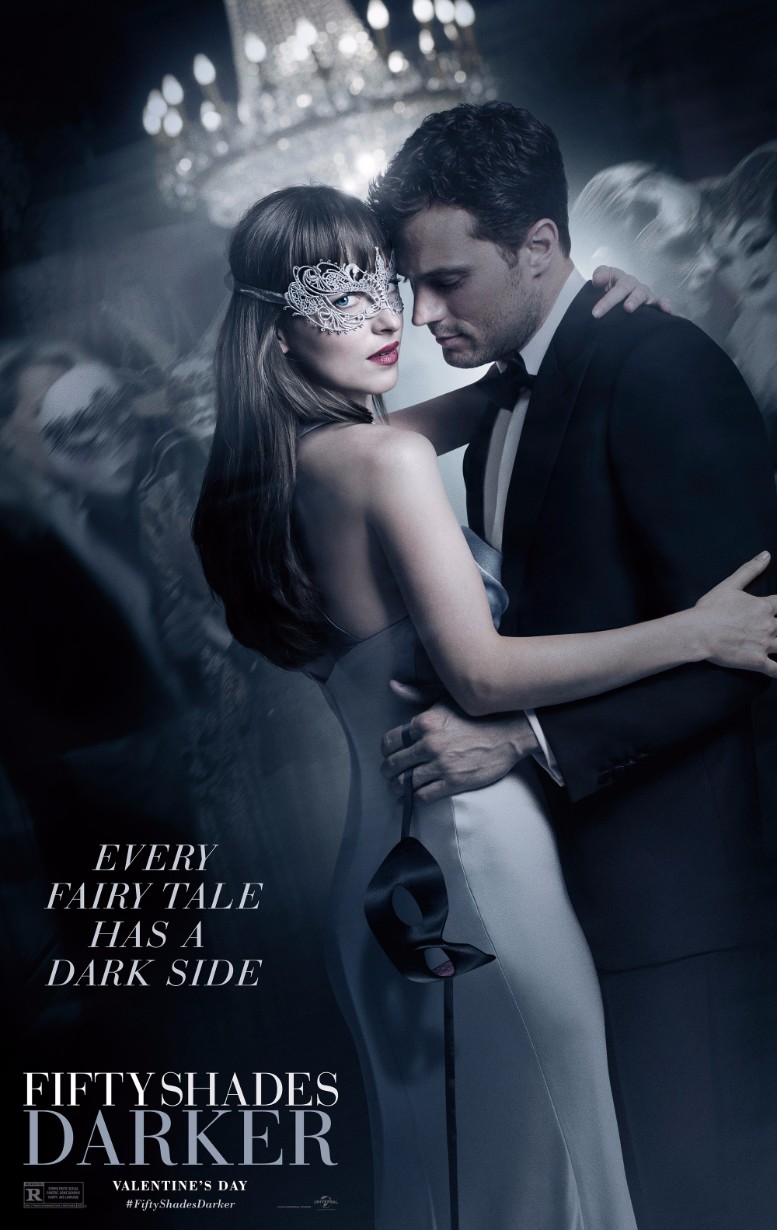
Fifty Shades Darker Font
Fonts in UseFifty Shades Darker is a 2017 erotic romantic drama film and the second installment in the "Fifty Shades" film series, based on the novel of the same name by E.L. James. The film follows the relationship between Anastasia Steele and Christian Grey as they try to navigate their complicated pasts and a new threat to their future together.
The film poster title font is Bauer Bodoni, an interpretation of Giambattista Bodoni's classic designs with extreme contrast between thin and thick strokes. The font family includes Roman, Italic, Bold, Condensed, Titling, and Titling No.2 variations.